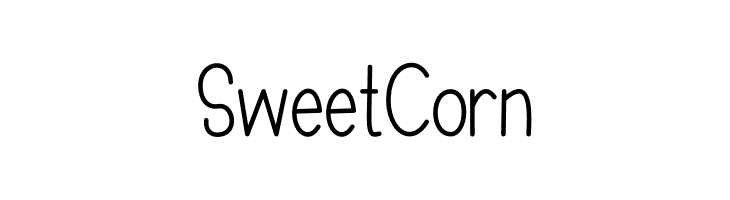
A playful, tall, and narrow font with geometric and smooth curves.
A bold, dripping graffiti-style font with a rebellious edge.
A bold, brush-style font with expressive, hand-painted characteristics.
A bold, cursive font with a dynamic and expressive style.
A bold, italicized font with a distressed, brush-like appearance.
A bold, playful script font with a retro vibe and smooth curves.
A playful, handwritten font with a casual and friendly style.
A bold, energetic brush script with a hand-painted look.
A bold, jagged font with sharp, thorny edges and an aggressive style.
A playful, bold font with thick, rounded characters and a whimsical style.